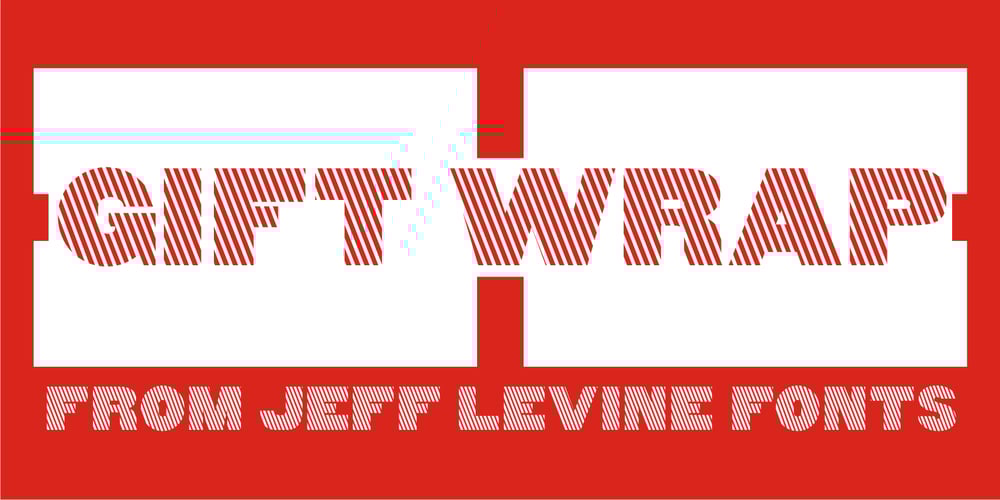
Gift Wrap JNL
Gift Wrap JNL font
Gift Wrap JNL Font Family was designed by Jeff Levine and published by Jeff Levine. Gift Wrap JNL contains 1 styles and family package options. Gift Wrap JNL takes a classic wood type display font and cuts it into diagonal striped lines to emulate package wrapping paper. An interesting side effect of the lettering is that at first glance you might perceive the style as being an oblique, but the letters are actually vertical. This typeface is perfect for holidays, birthdays and special events featuring a festive theme.